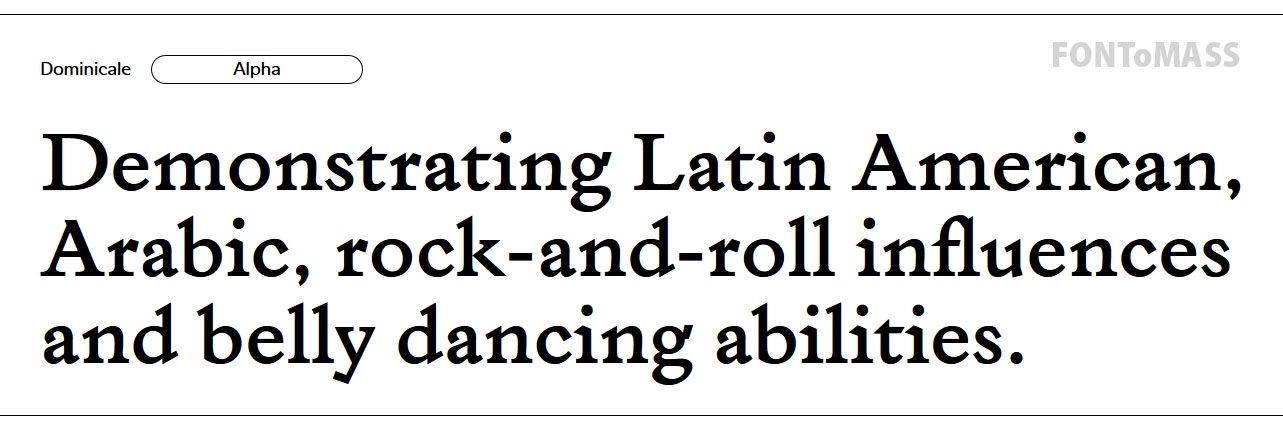
Dominicale Font
This elegant typeface is perfect for religious publications, church bulletins, spiritual book covers, ecclesiastical branding, sacred music programs, cathedral signage, religious ceremony materials, and devotional greeting cards. Dominicale Font delivers reverent beauty in applications where spiritual dignity and traditional religious aesthetics are central to meaningful communication.
What makes Dominicale Font so exciting is its masterful embodiment of sacred typography traditions with contemporary clarity. The font features gracefully proportioned letterforms with subtle calligraphic influences that evoke centuries of religious manuscript heritage. Each character has been thoughtfully designed to inspire contemplation and reverence while ensuring excellent readability across various worship and educational contexts. The typeface's spiritual character creates an atmosphere of peace and solemnity, making it perfect for religious institutions and faith-based organizations seeking to communicate their sacred mission through authentic, dignified visual identity.
The Dominicale Font includes essential variations: Regular, Italic, Bold, and Ornamental versions. This sacred collection provides designers with appropriate tools to create hierarchical layouts and maintain respectful consistency across diverse religious applications. Each style preserves the font's inherent spiritual character while offering different levels of emphasis for various liturgical and educational communication needs.
This sacred typeface represents the perfect choice for designers who understand the importance of respectful, authentic typography in spiritual and religious communication contexts.